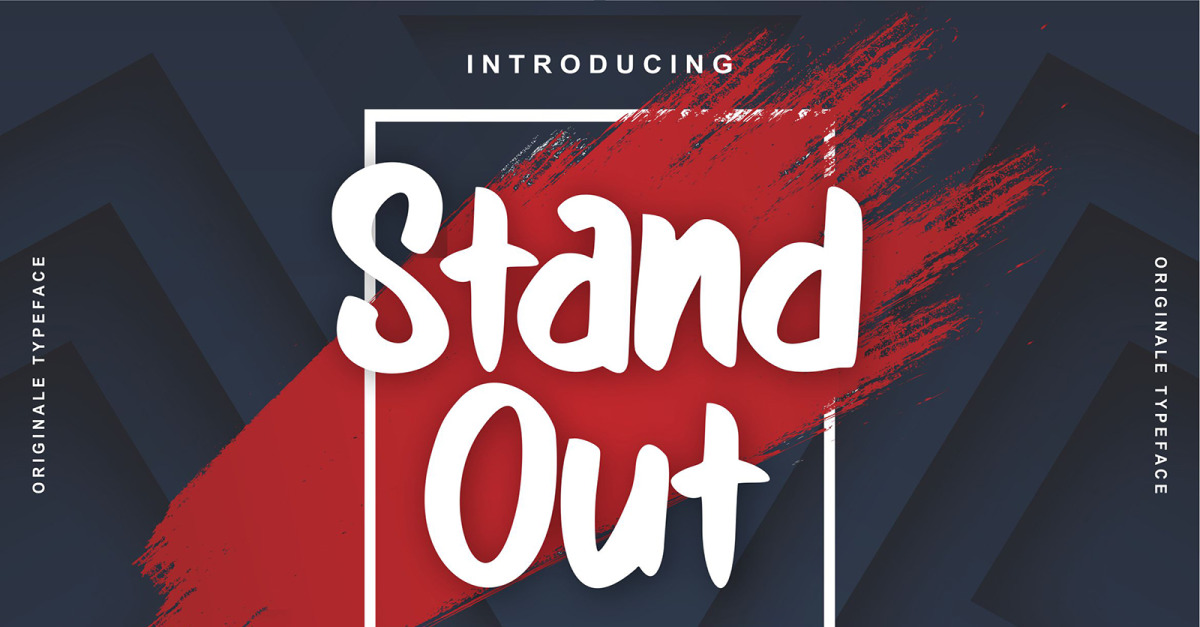
Stand Out | Unique Font
**Stand Out | Unique Font** with a calligraphy style, So beautiful on invitation like greeting cards, branding materials, business cards, quotes, posters, and more!